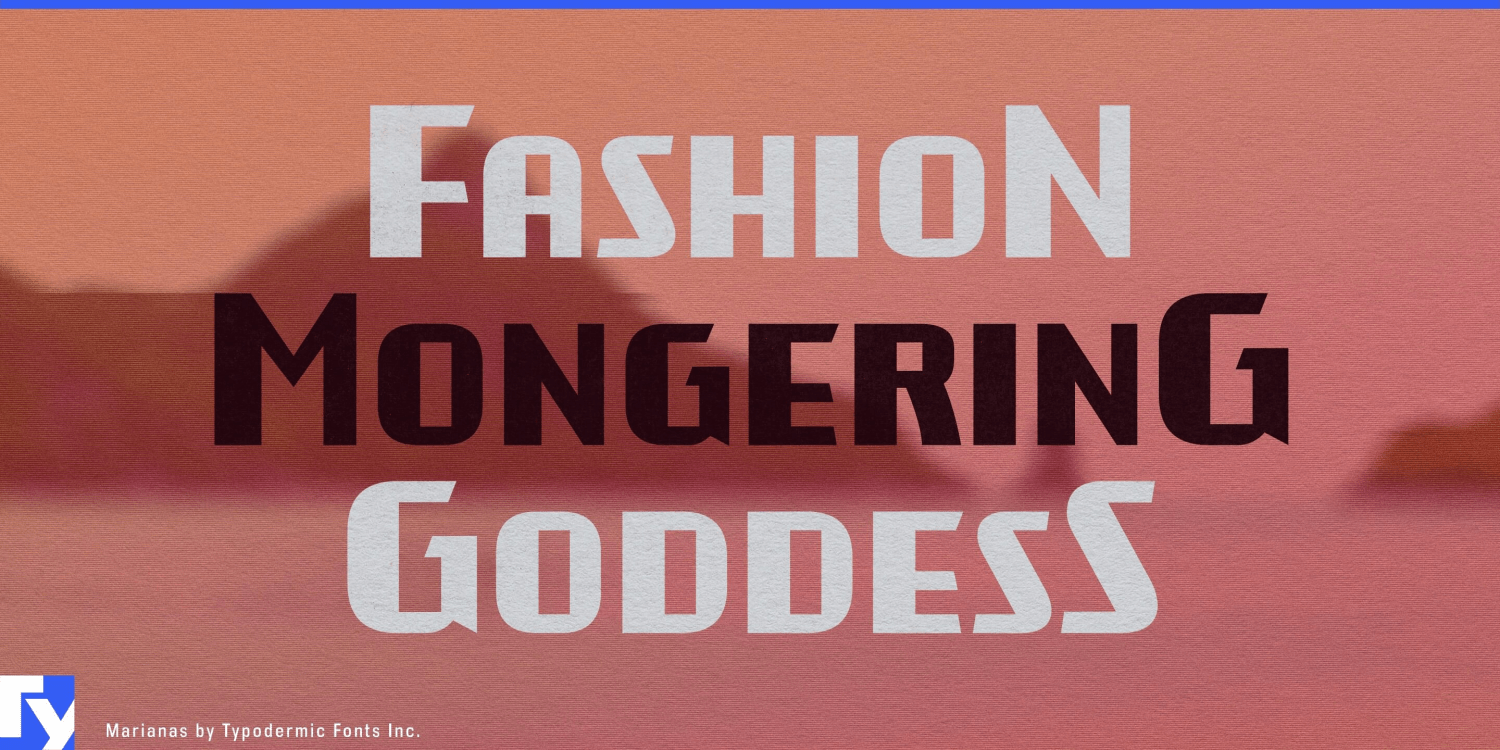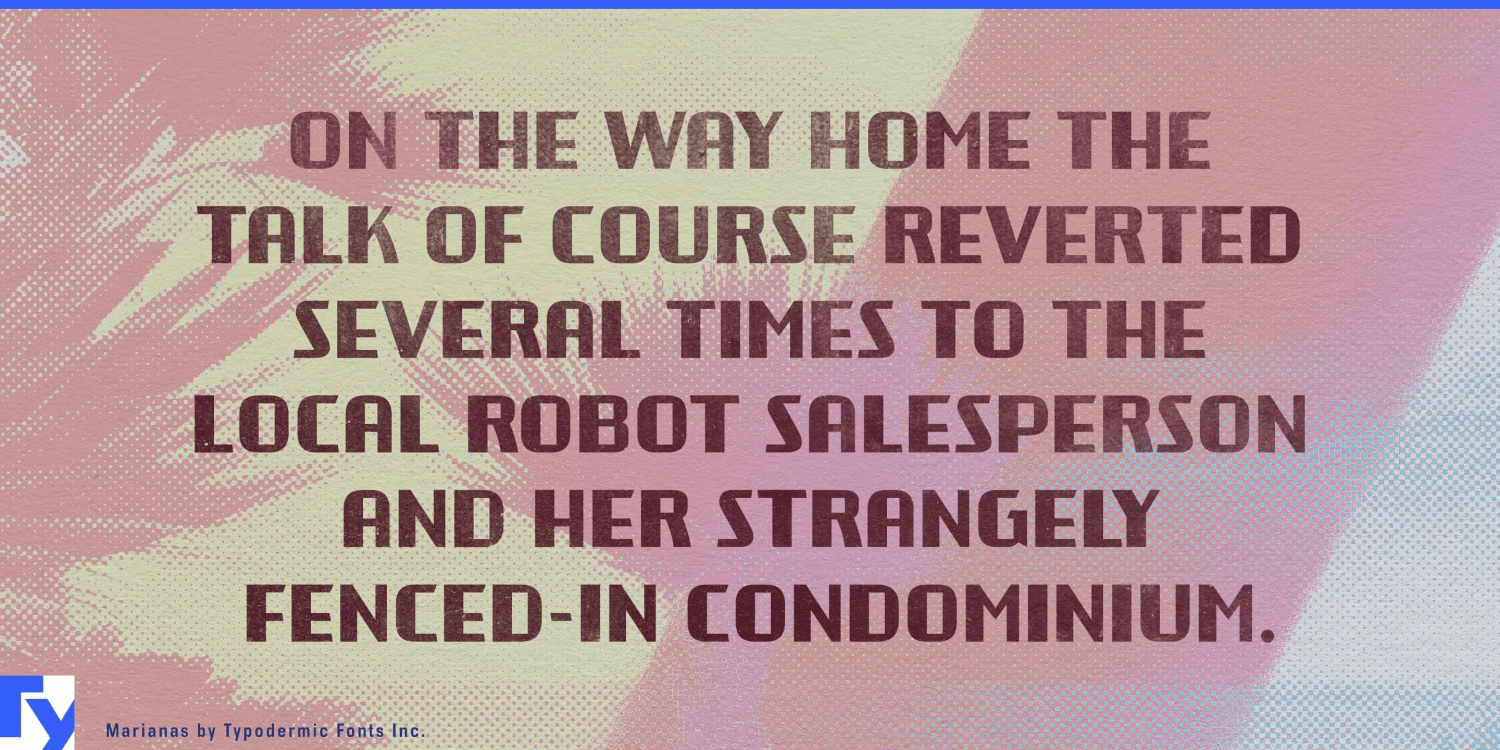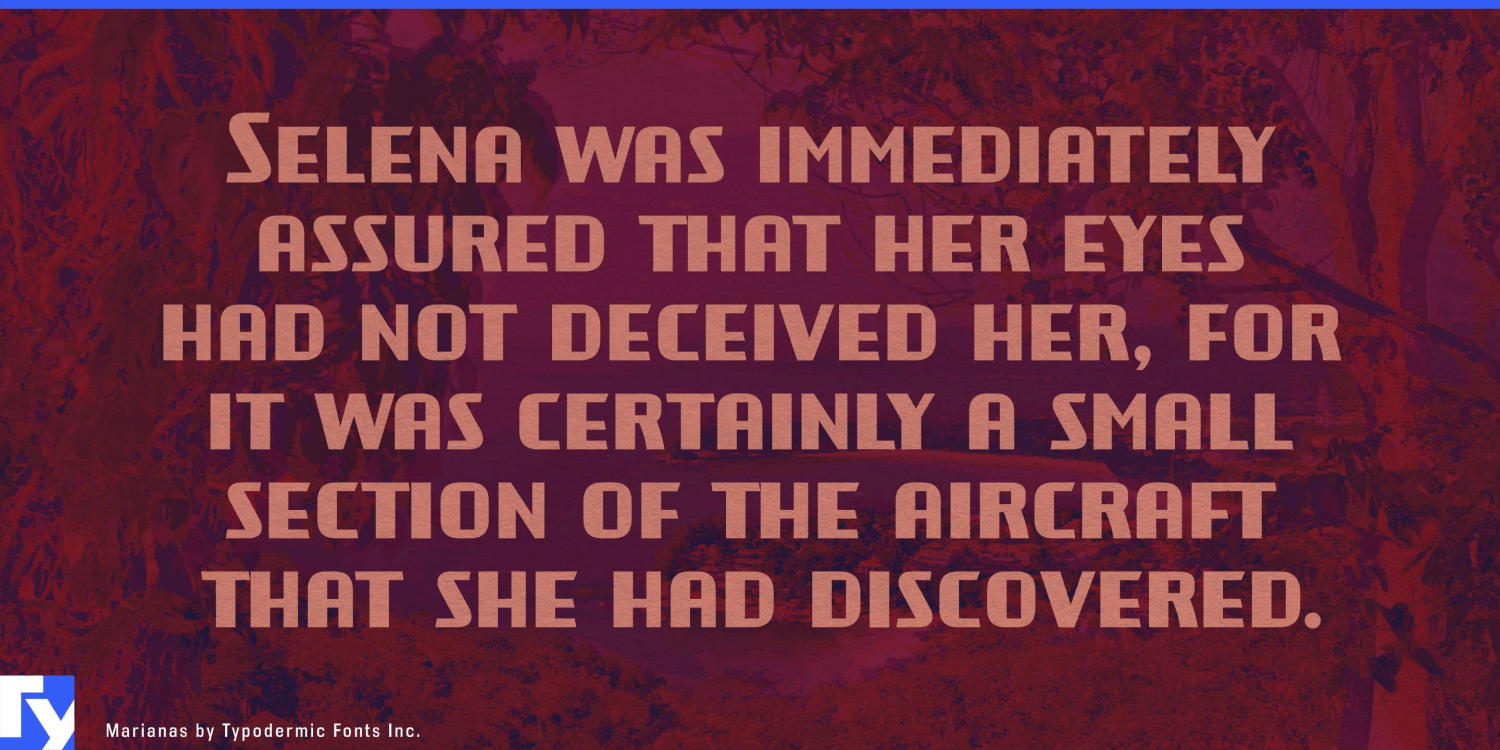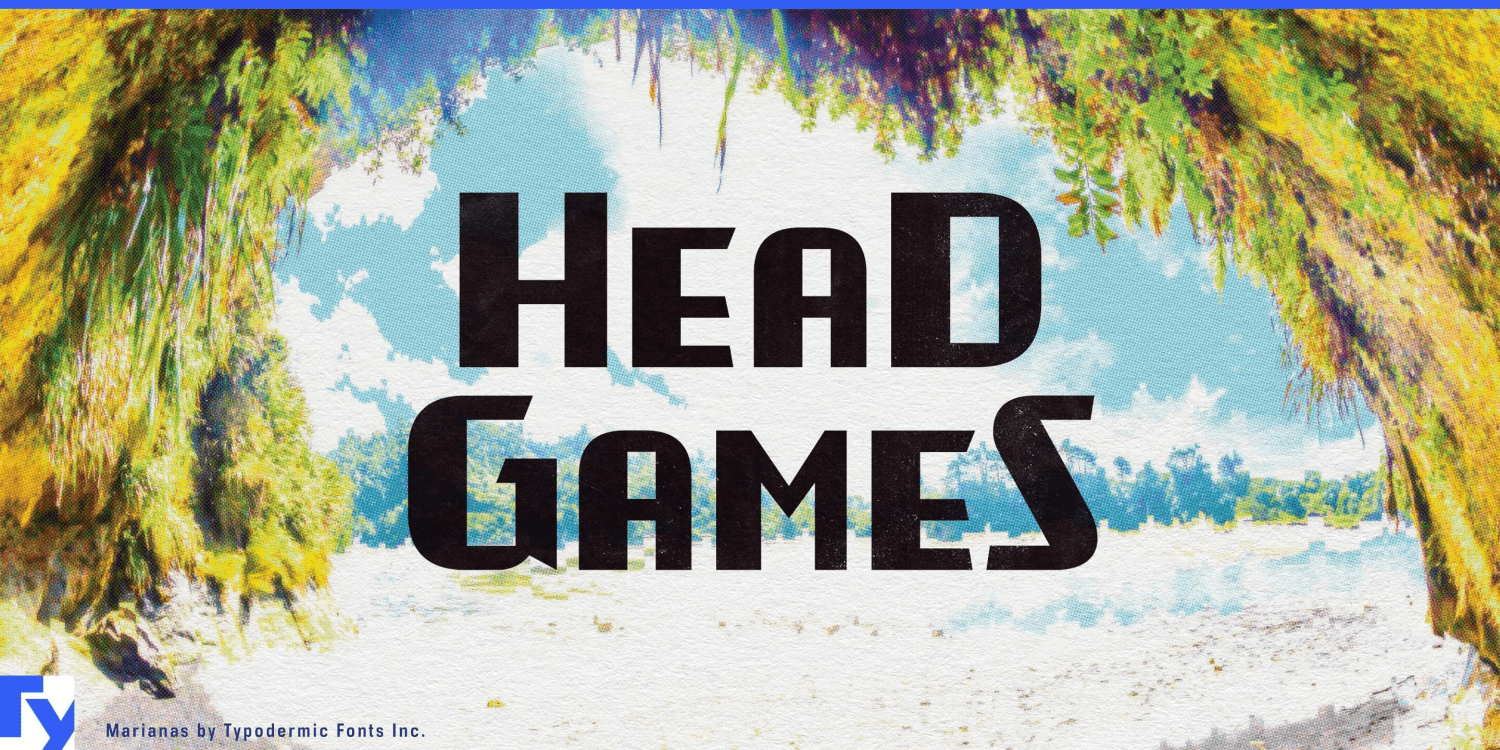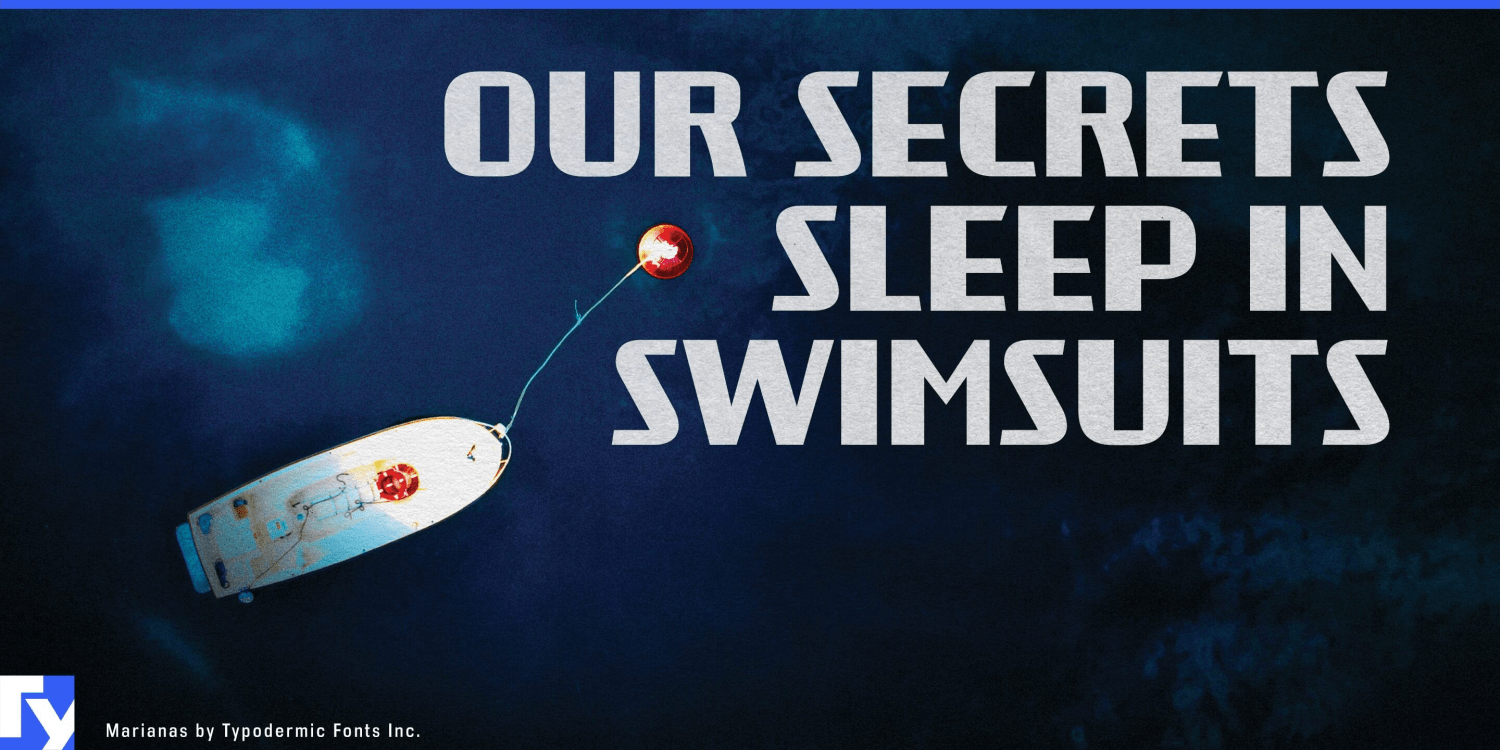
About Marianas
Prepare for typographic warfare with Marianas, a font that doesn’t just speak—it commands. This powerhouse of design fuses the suave sophistication of 1920s Art Deco with the unyielding precision of 1940s industrial might, creating a visual…